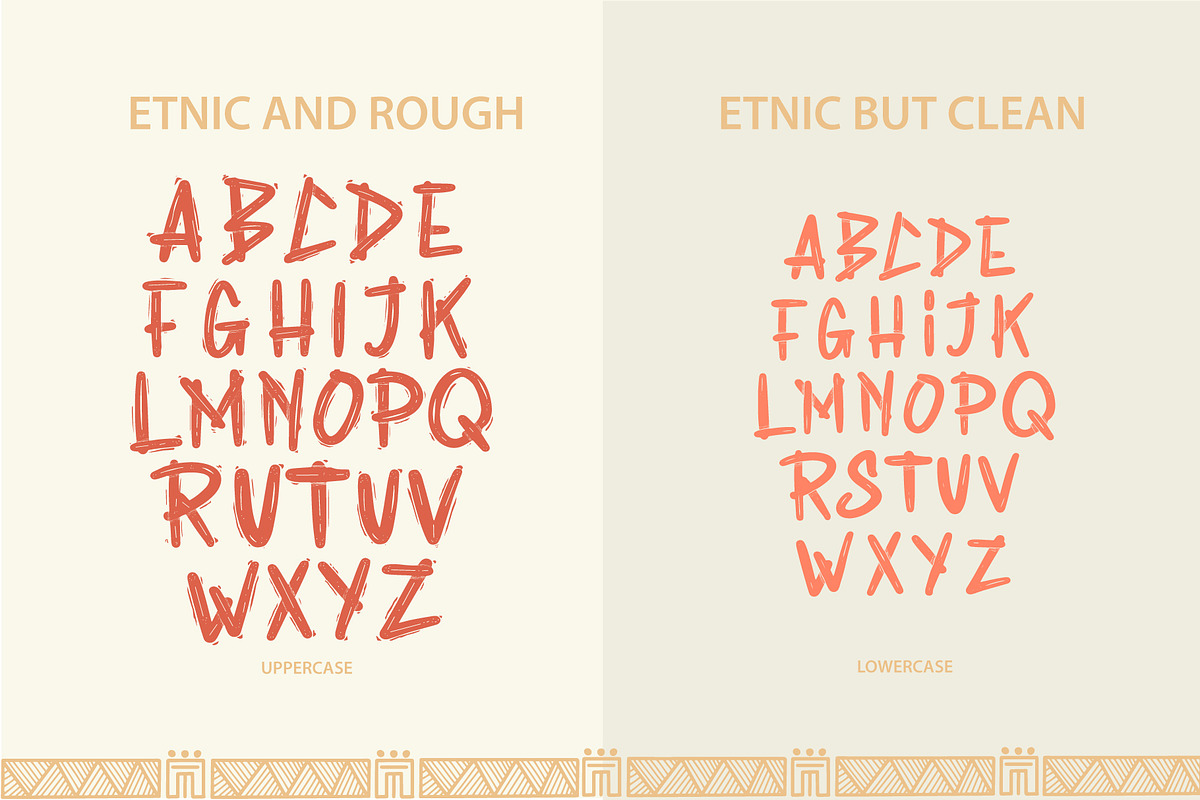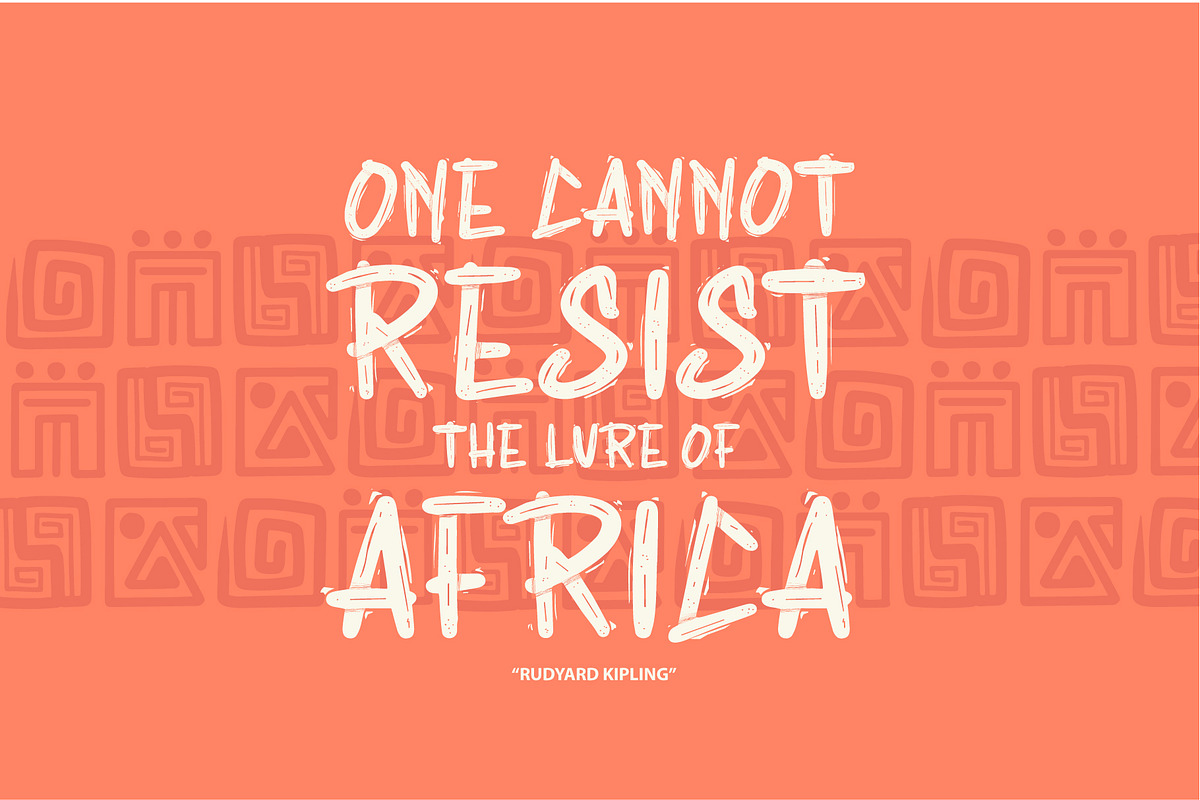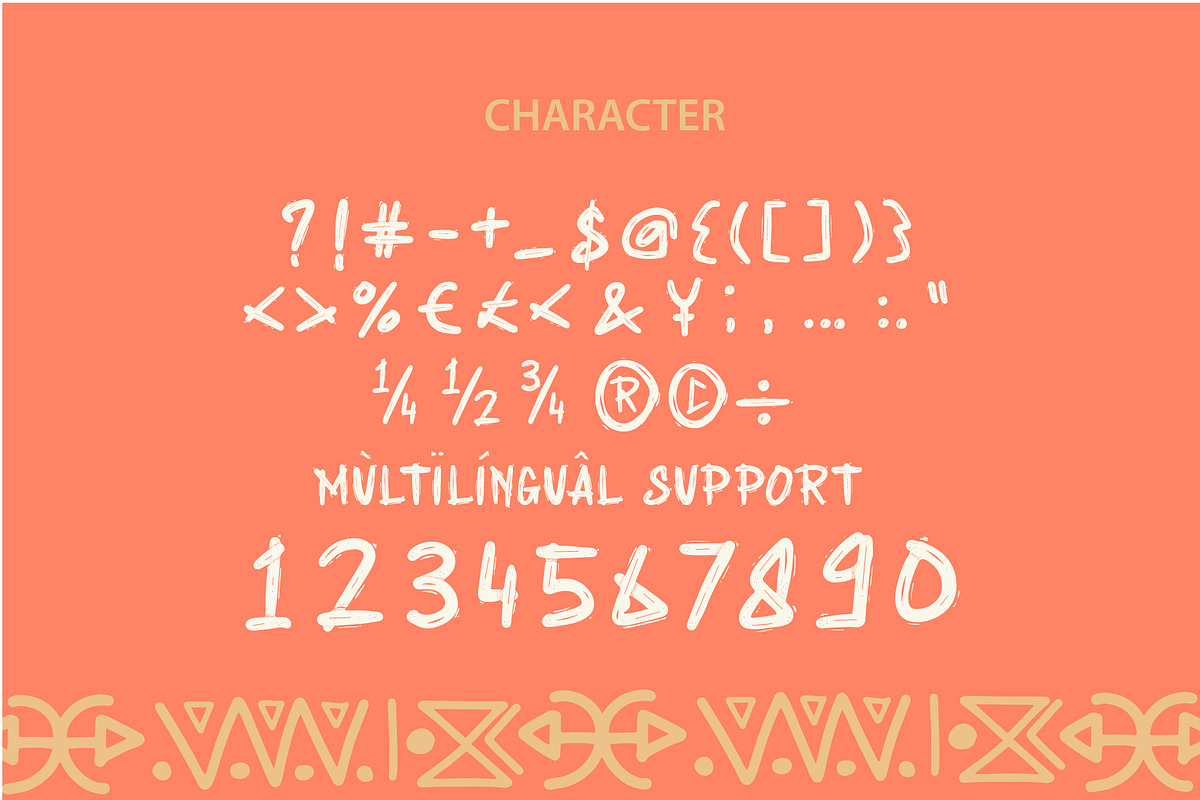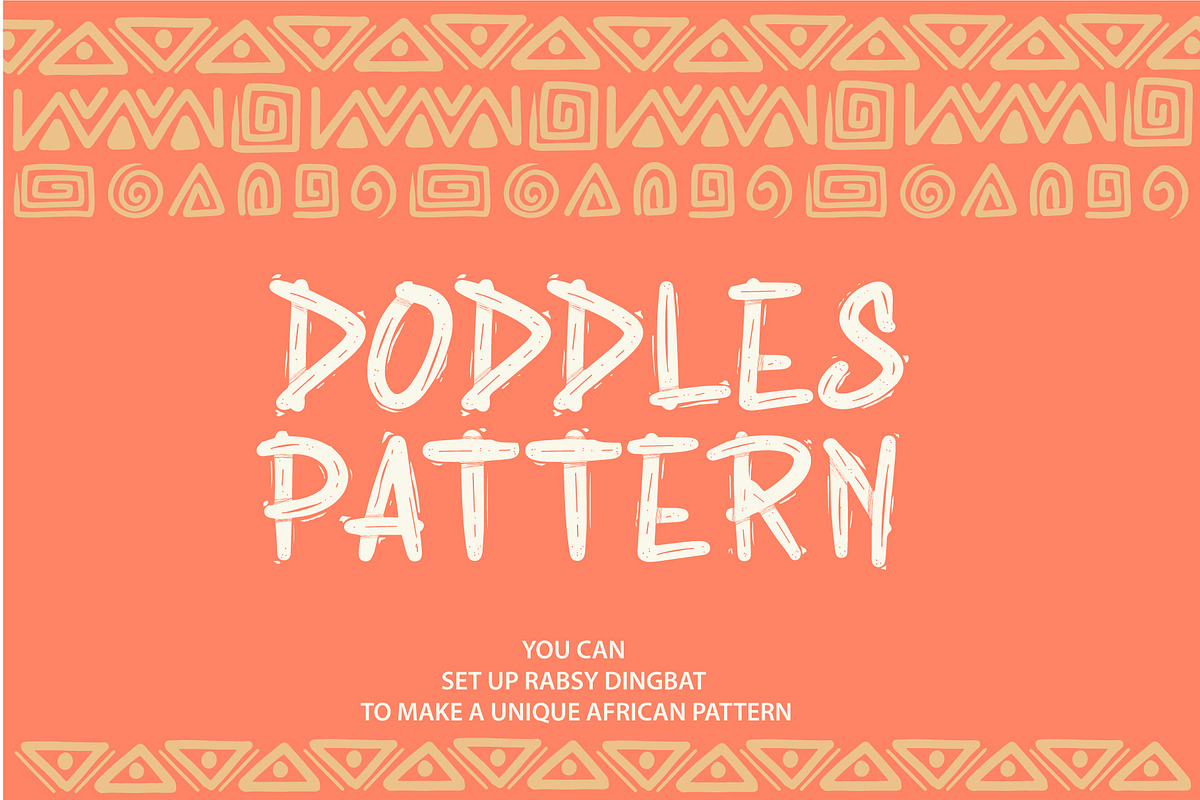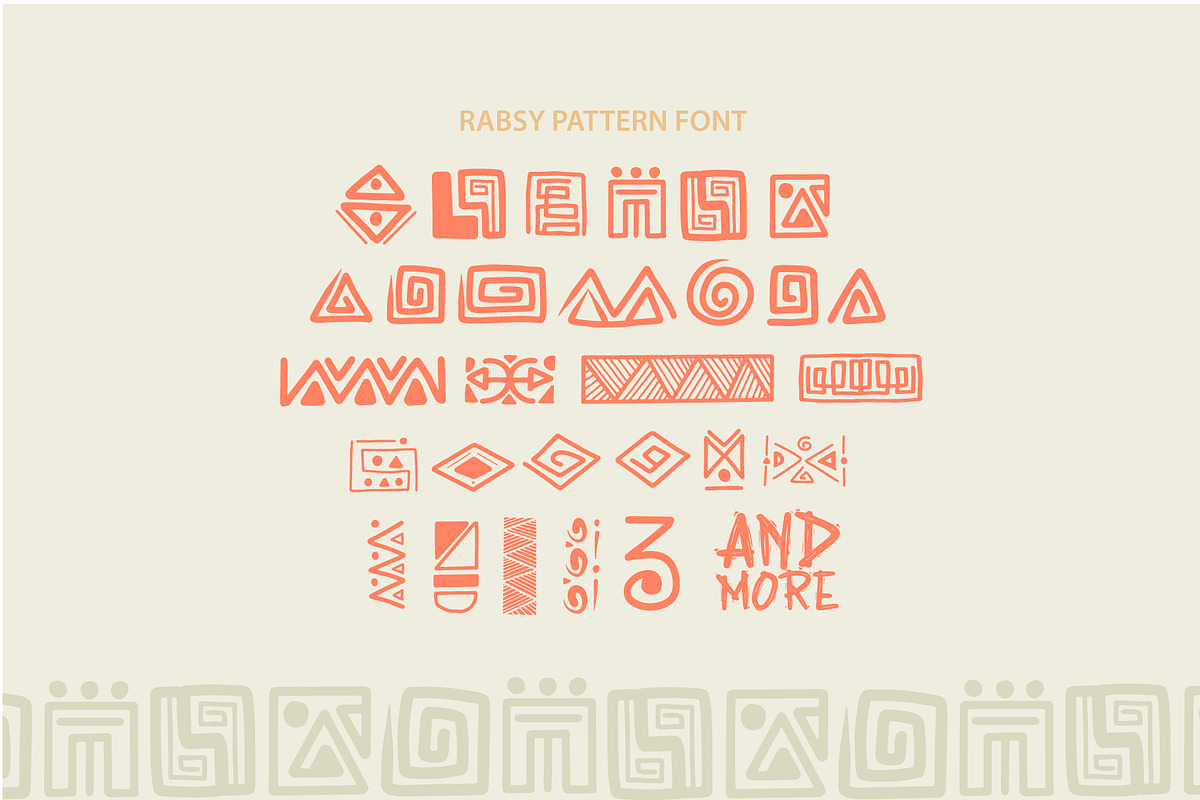
Rabsy: African pattern font
RABSY is a unique cartoon font with African concept. Available dingbat african pattern makes it easy for you to make african patterns, and make fun display tittle.!!
A mixed-case font ( Rabsy Font and Rabsy Pattern ) with lots of combination possibilities, make greats fun display! its good to make a logotype, sticker, fun kids sign, and other lettering project. This fun is perfect combination uppercase and lowercase.
UPPERCASE and lowercase
Lots of african Rabsy Pattern 1-9, A-Z and a-z (more fun with lots of combination possibilities)
Panctuation and numeral
extended Latin characters for language support.